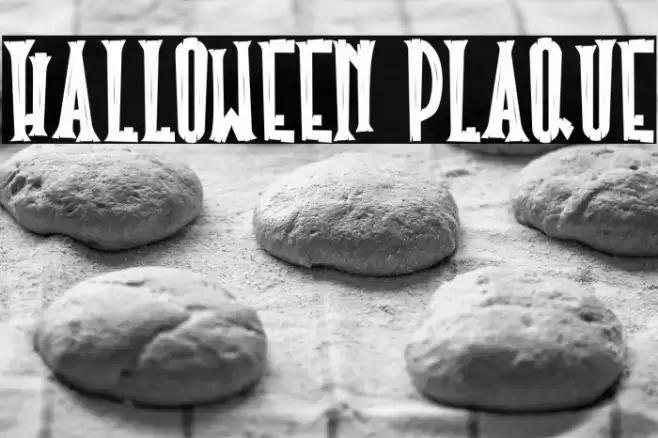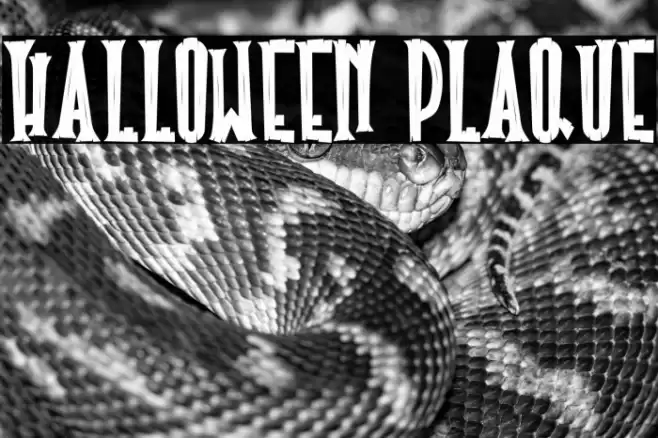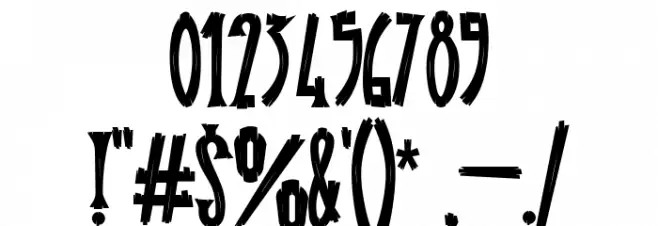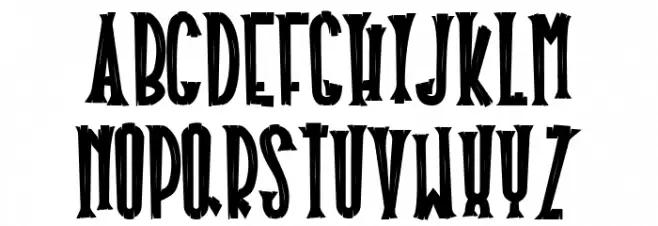
Halloween Plaque Font
Halloween Plaque Description
This font features a bold, jagged style with a spooky and playful appearance, reminiscent of classic Halloween themes. The letters have an uneven, hand-drawn quality, with exaggerated serifs and varying stroke widths that create a dynamic and energetic look. The uppercase and lowercase letters maintain a consistent style, while the numbers and special characters complement the overall theme. This font is ideal for designs that require a touch of whimsy and a hint of the macabre, making it perfect for seasonal projects or themed events.
A bold, jagged font with a spooky, playful Halloween theme from Uncategorized fonts.
- Font: Halloween Plaque
- Proposed Projects: Ideal for Halloween-themed posters, party invitations, haunted house signage, and seasonal marketing materials.
- Contrast: High